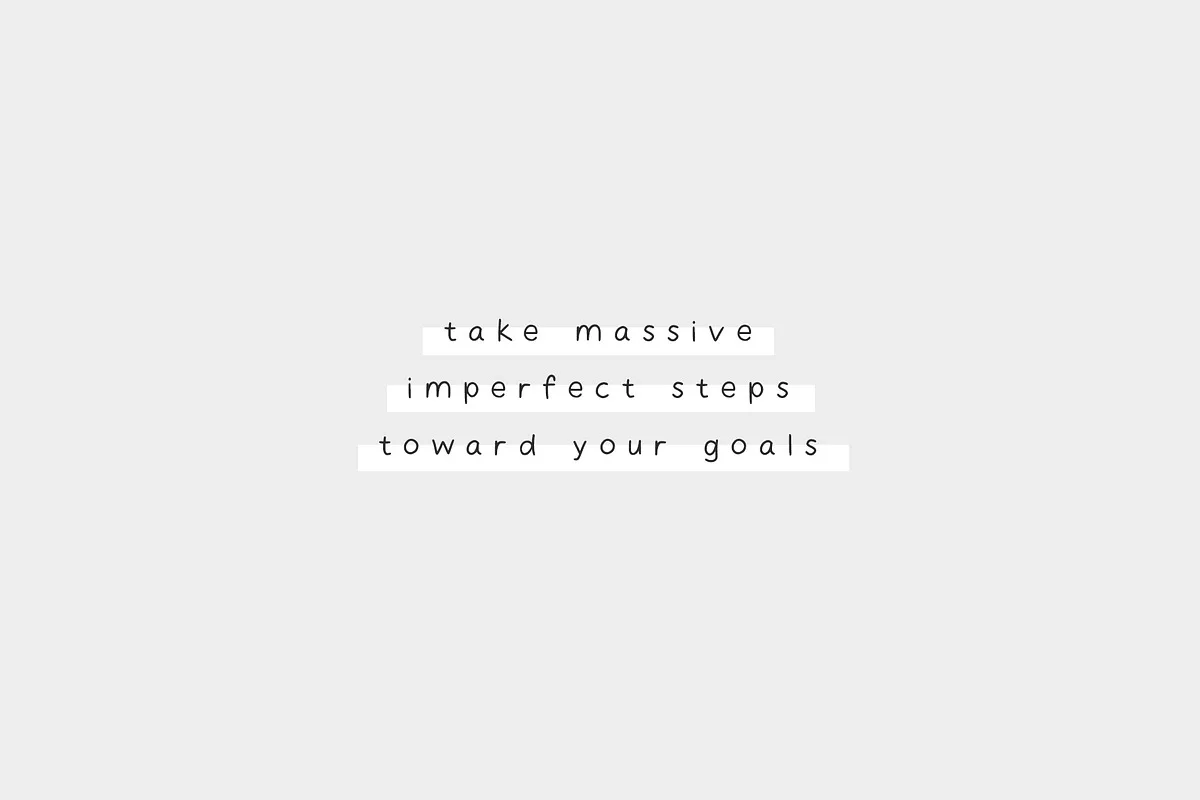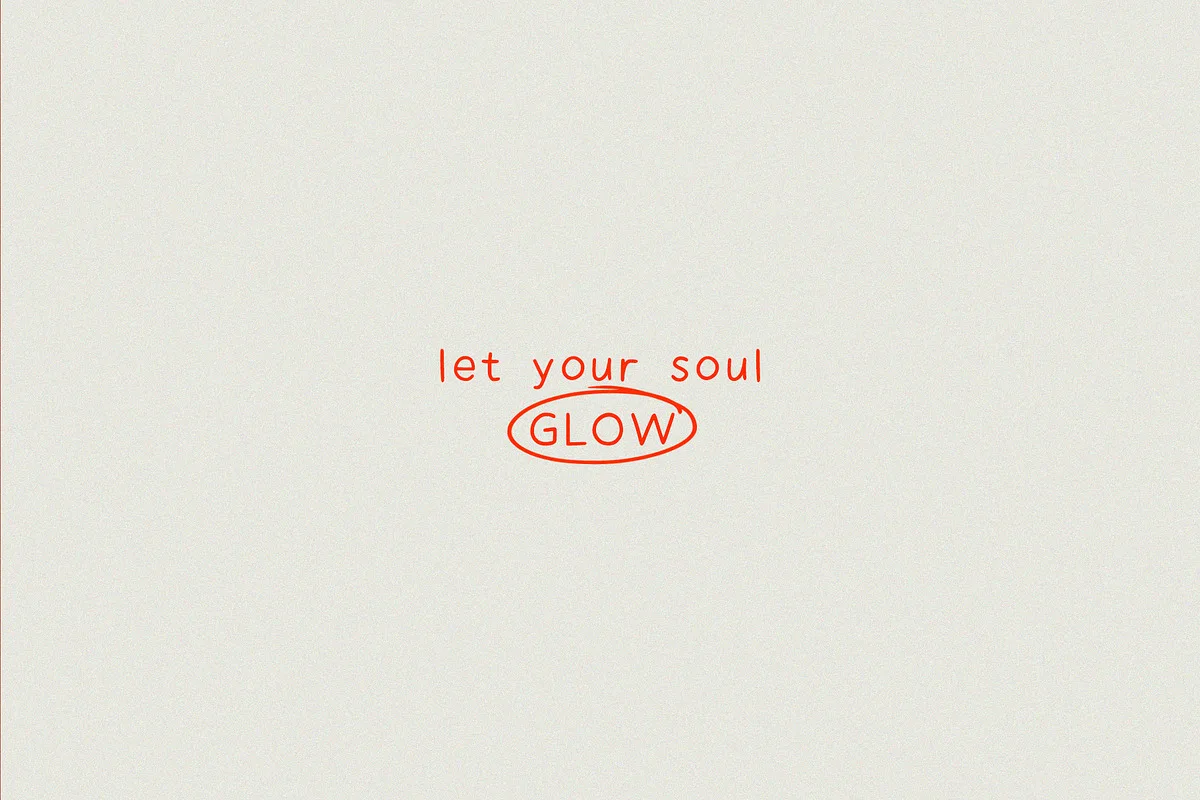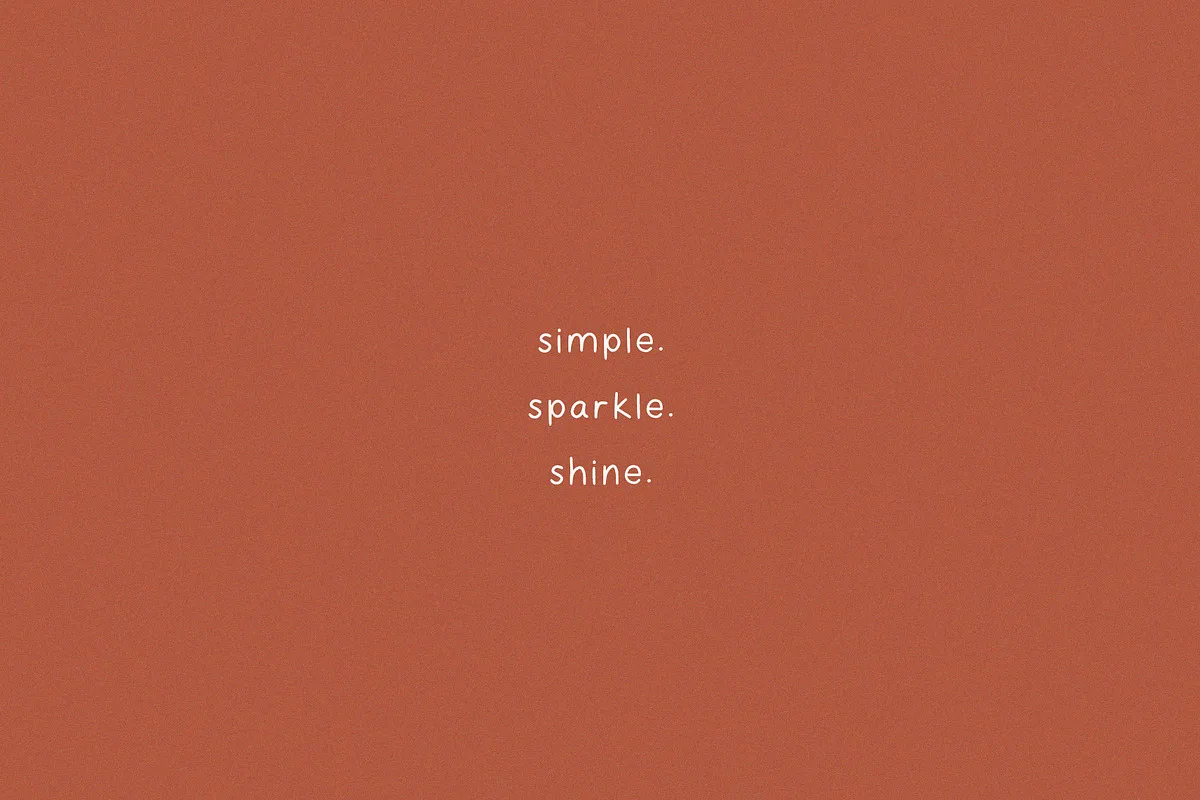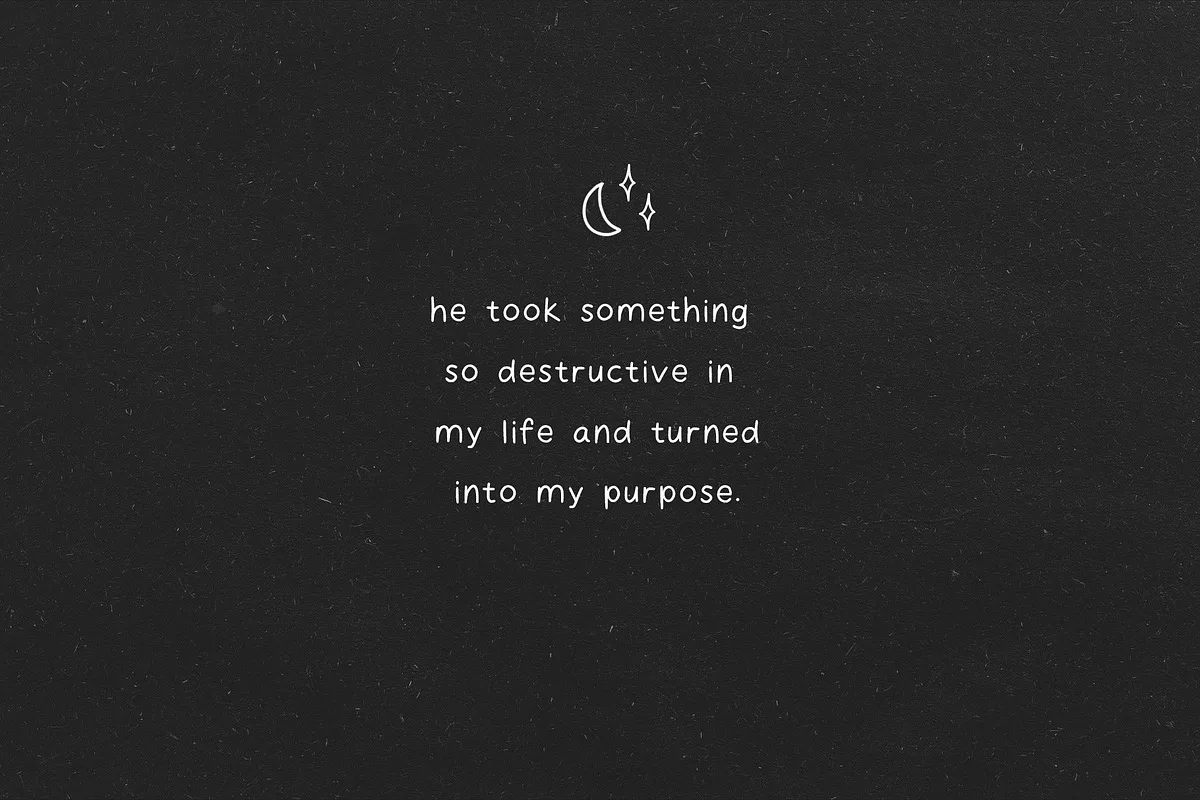
Wildflower is a new handwriting font. It’s perfect for creating quotes, logos, or just adding a handmade touch to any project. It can be used for logos, branding, invitations, websites (static images), packaging, and products.